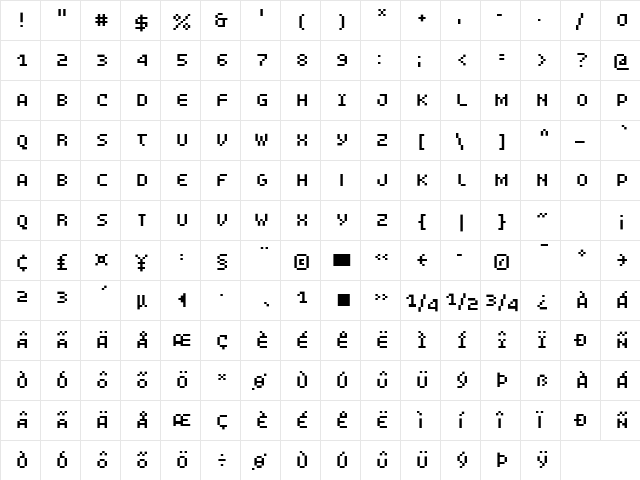
LomoWebPixel LT Std 4 Regular
| Designer | Fidel Peugeot |
Design Context for LomoWebPixel LT Std 4 Typeface
LomoWebPixel LT Std 4 is rooted in pixel-grid construction, making it a natural fit for game UI, retro computing aesthetics, and digital nostalgia projects.
Well-suited to indie game interfaces, retro computing aesthetics, and pixel art-adjacent design work.
Pro Tip: Use LomoWebPixel LT Std 4 at sizes that align with its pixel grid for the sharpest rendering — scaling to non-integer multiples can introduce unwanted blur.